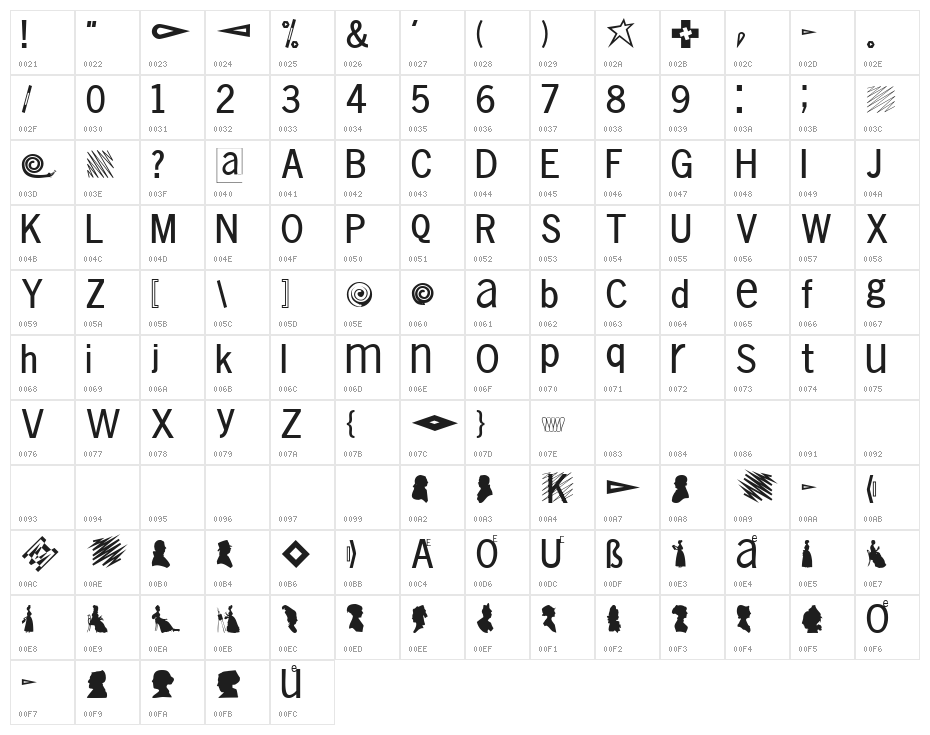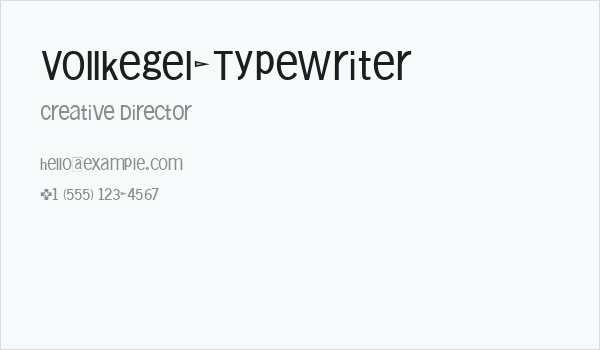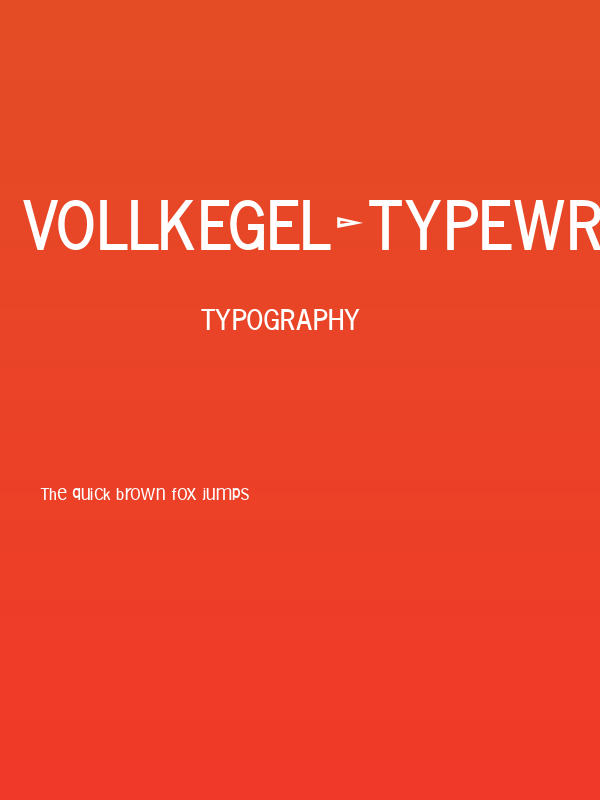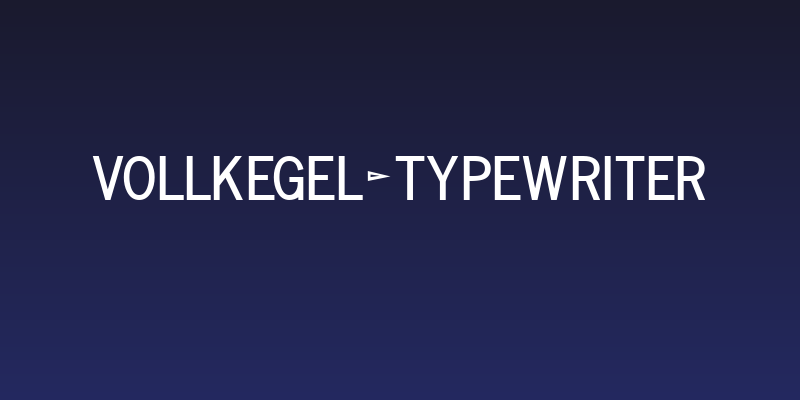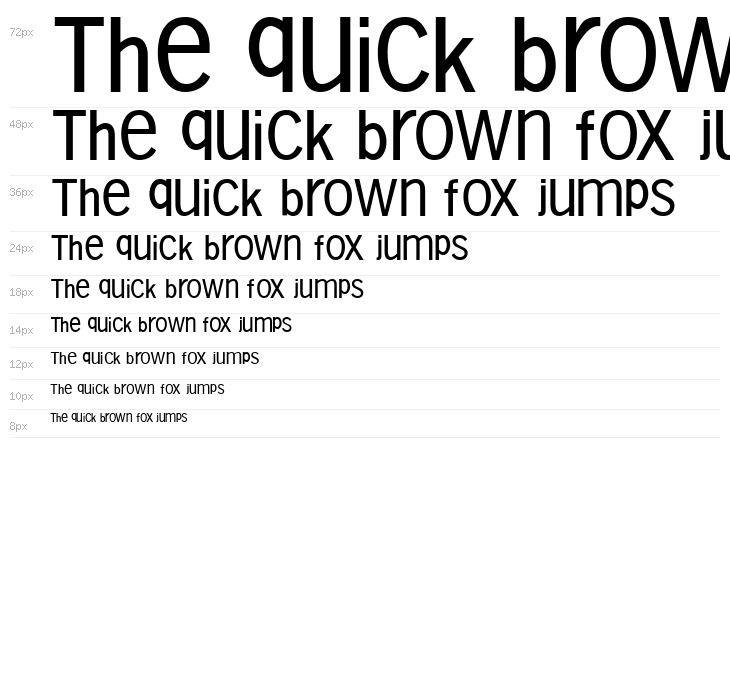
Vollkegel-Typewriter Font
Vollkegel-Typewriter Description
This typeface features a clean, modern design with uniform stroke widths, giving it a balanced and professional appearance. The characters are well-proportioned, with a slightly condensed structure that enhances readability. The uppercase letters are bold and assertive, while the lowercase letters maintain a consistent style that complements the overall aesthetic. The numerals are clear and distinct, making them suitable for various applications. Special characters are included, offering versatility for different design needs.